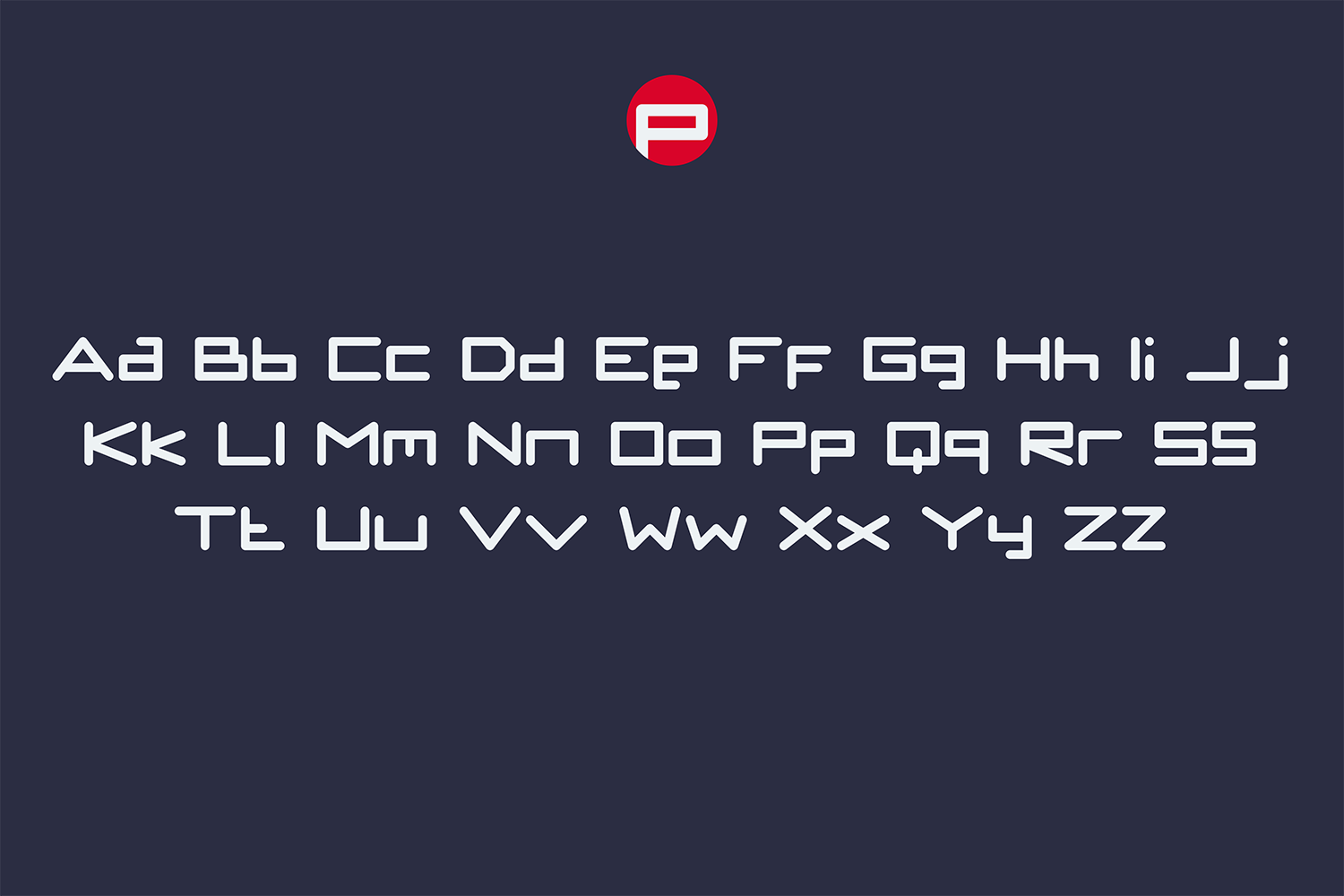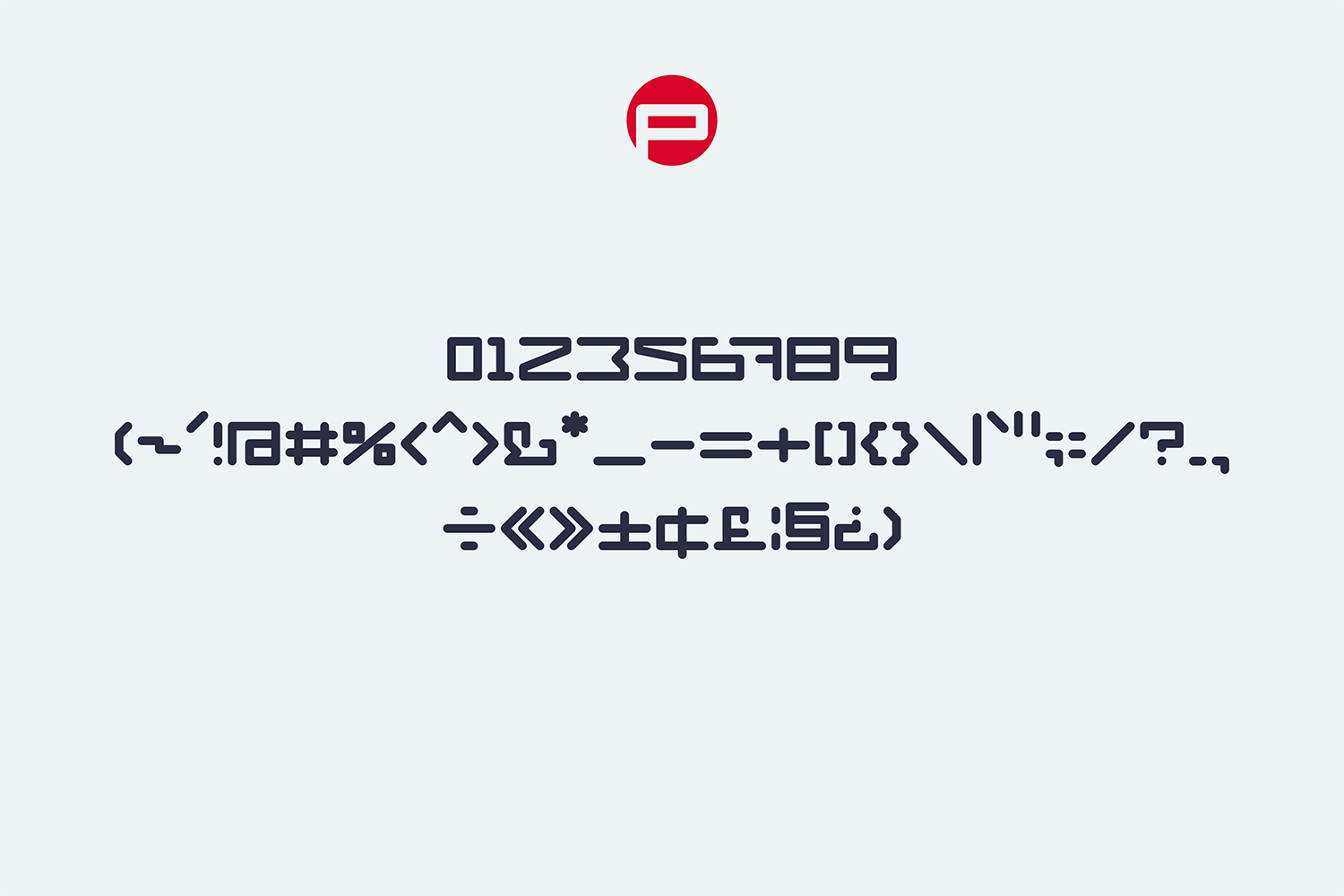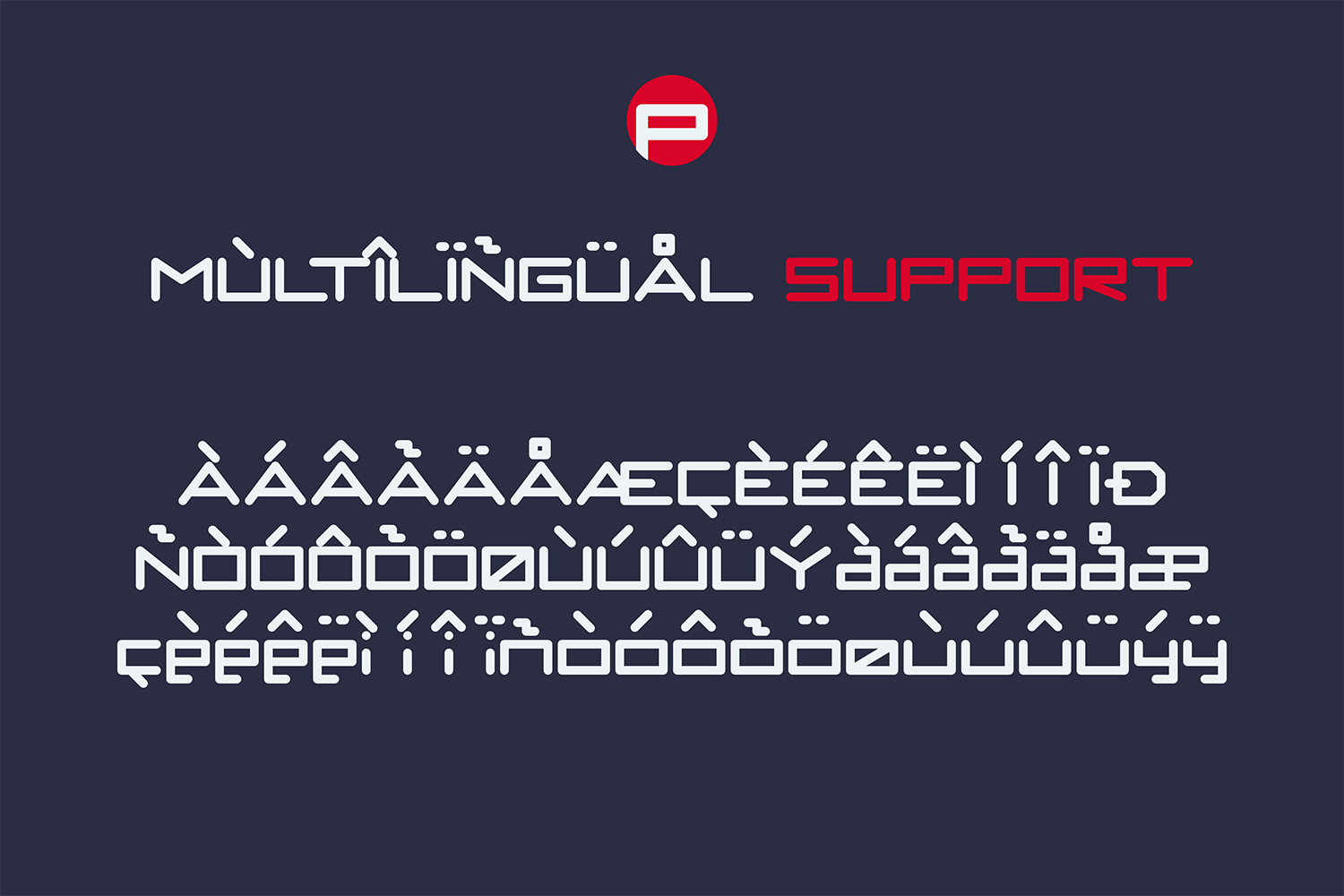
Paroshca Free Font
Introducing Paroshca Free Font – a cutting-edge and contemporary display font that embraces the future with its modern aesthetics. This font boasts full multilingual support along with standard punctuation, catering to a wide range of language requirements.
Ideal for logo design, book covers, magazines, and more, Paroshca adds a touch of sophistication to your projects. Enhance your designs instantly by incorporating the sleek and stylish Paroshca font. Elevate your creative endeavors with this futuristic gem and witness the captivating transformation of your work. Don’t wait any longer – let Paroshca take your designs to the next level. This free typeface was designed by a talented Ismail Abdurrasyid If you like it don’t forget to check out the full version.